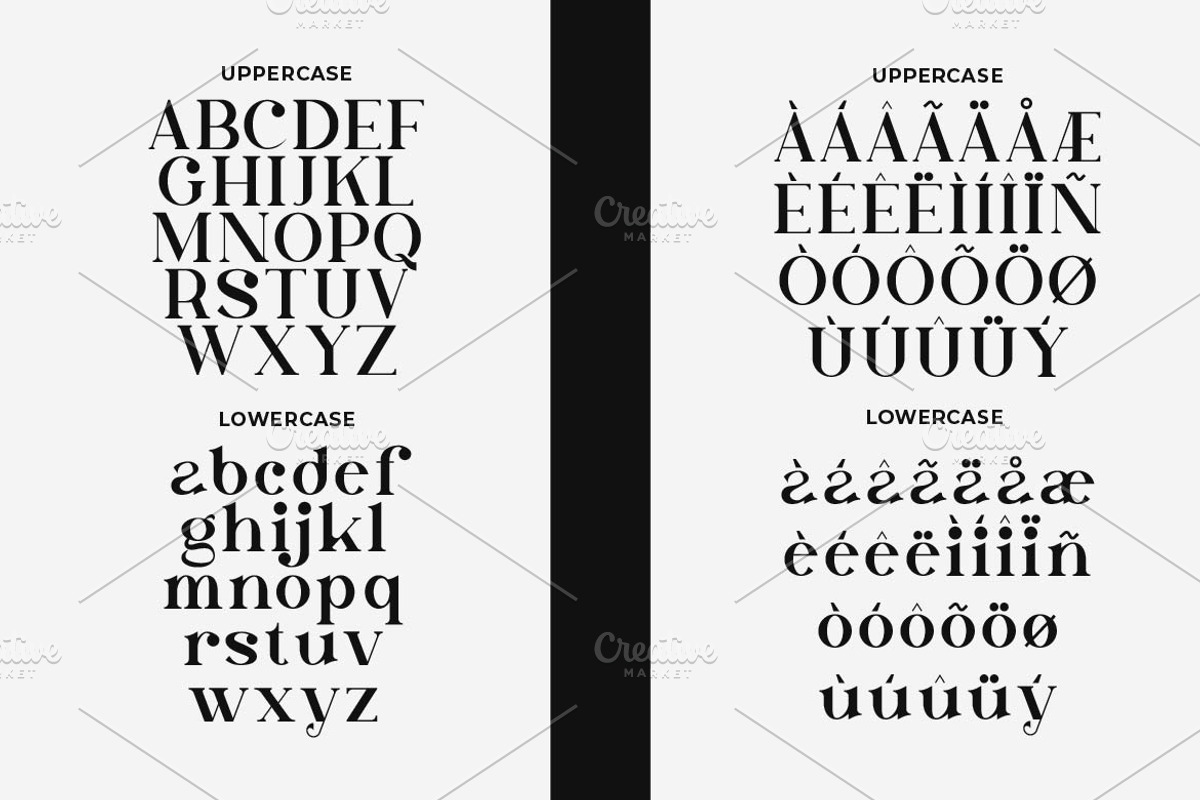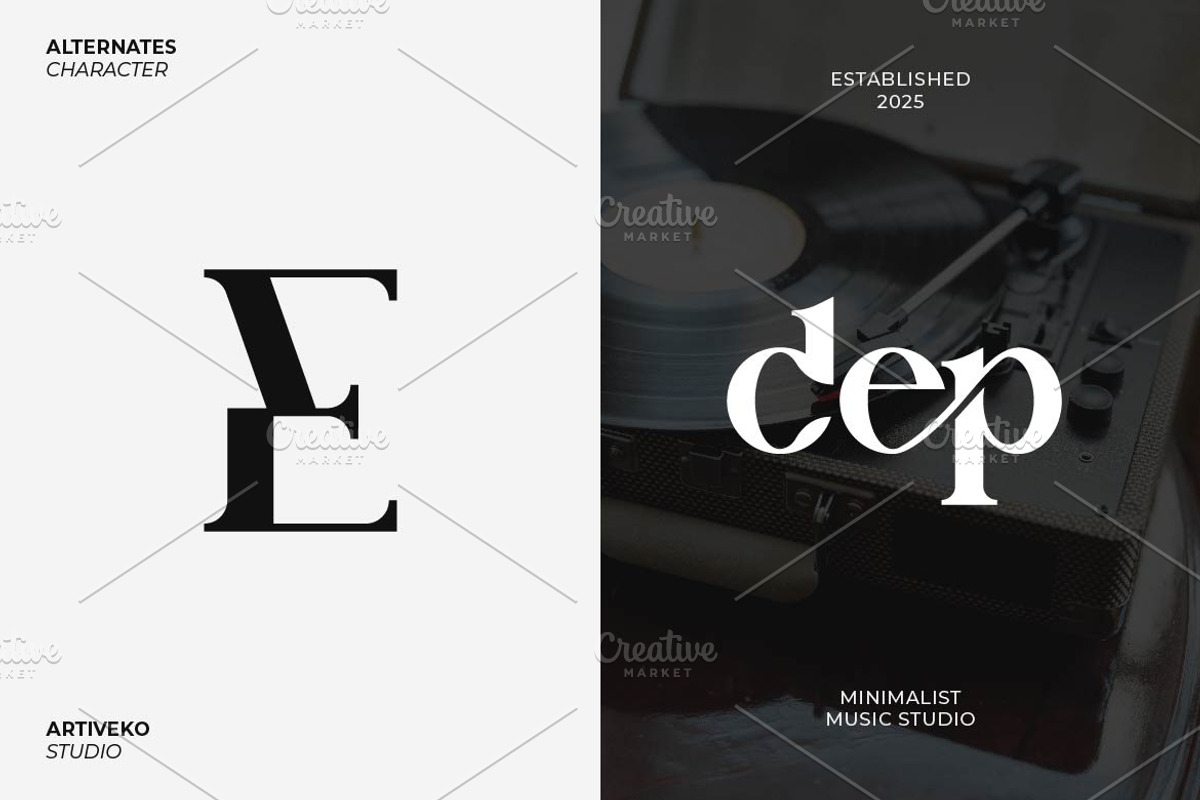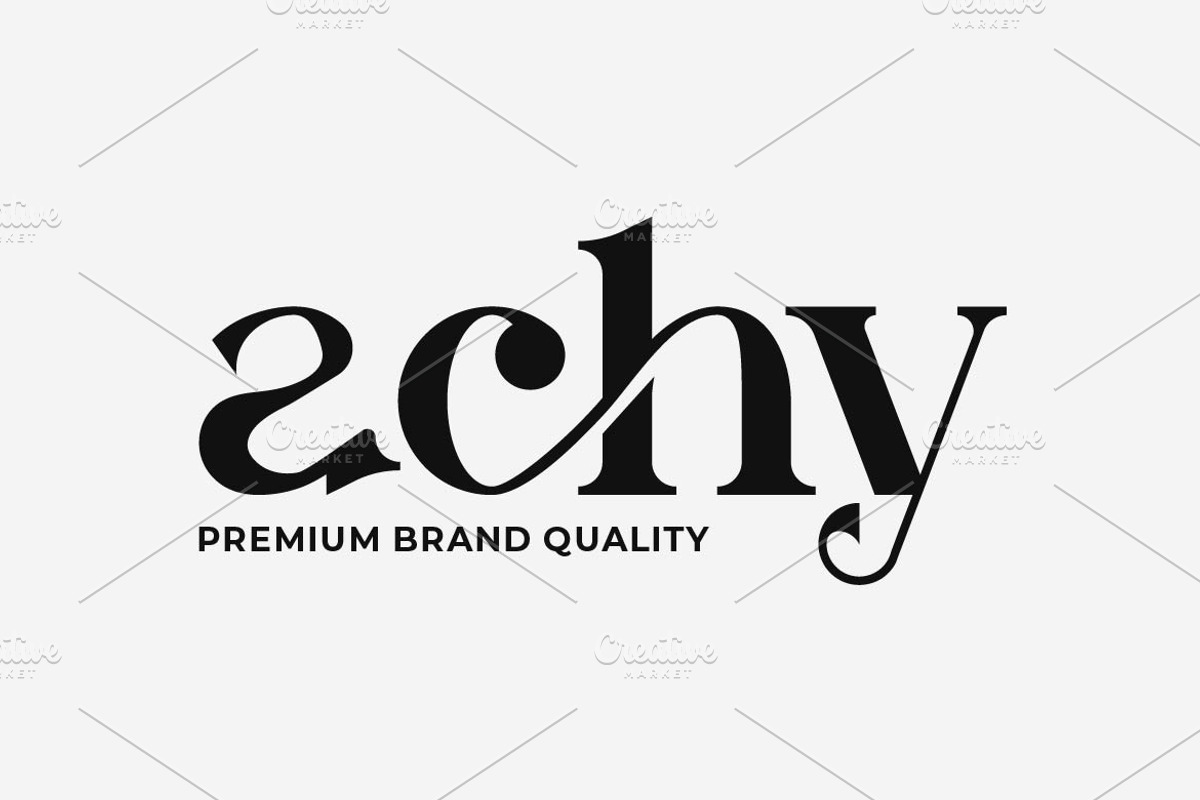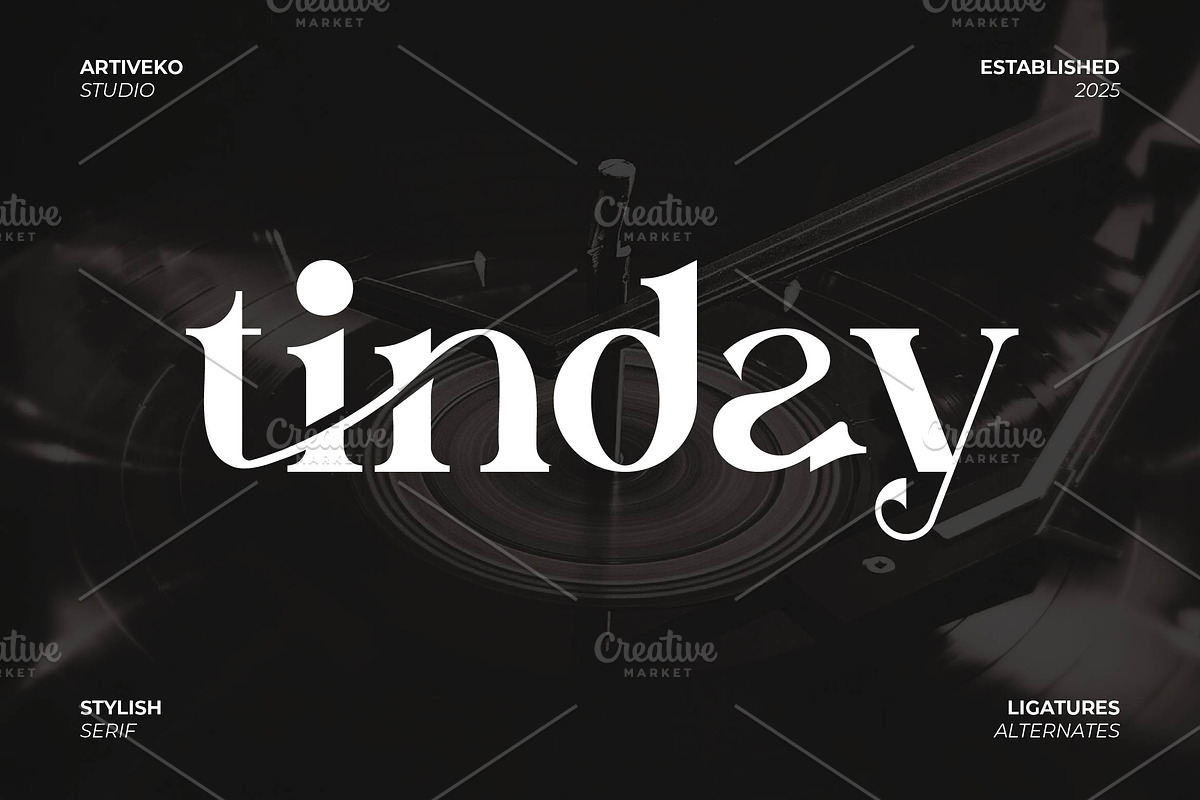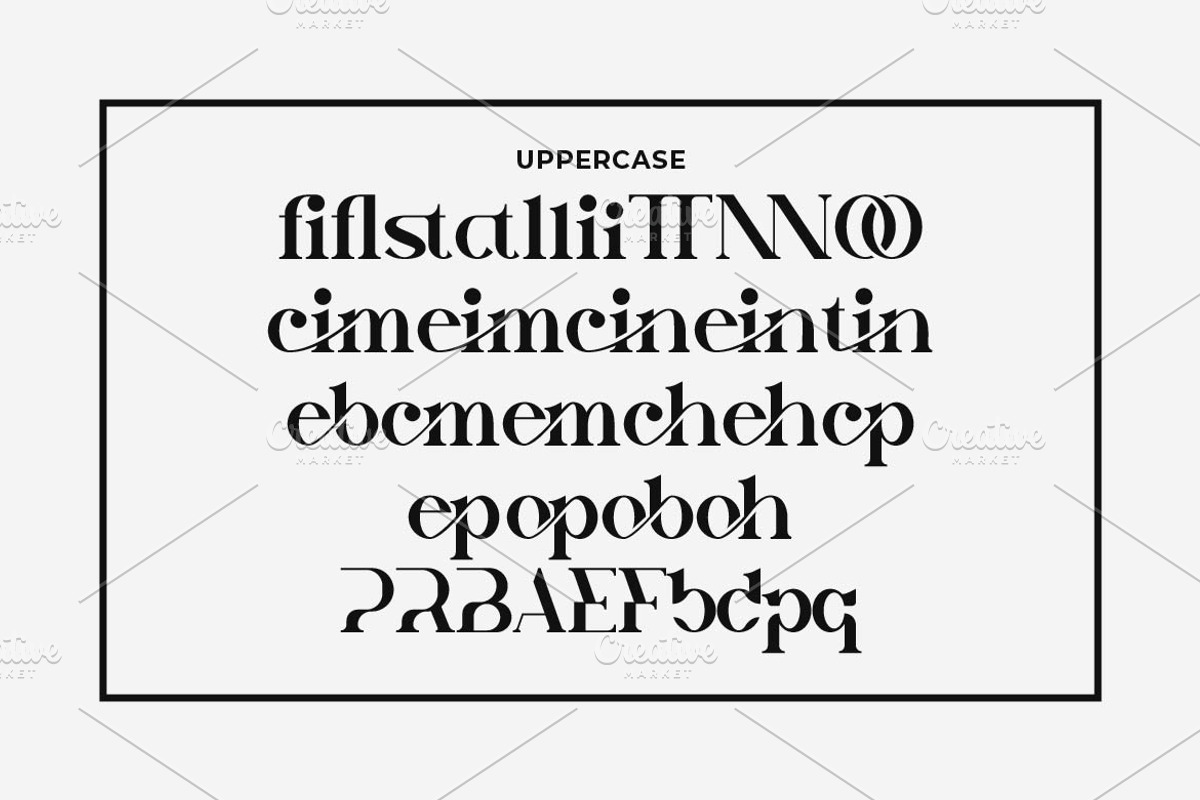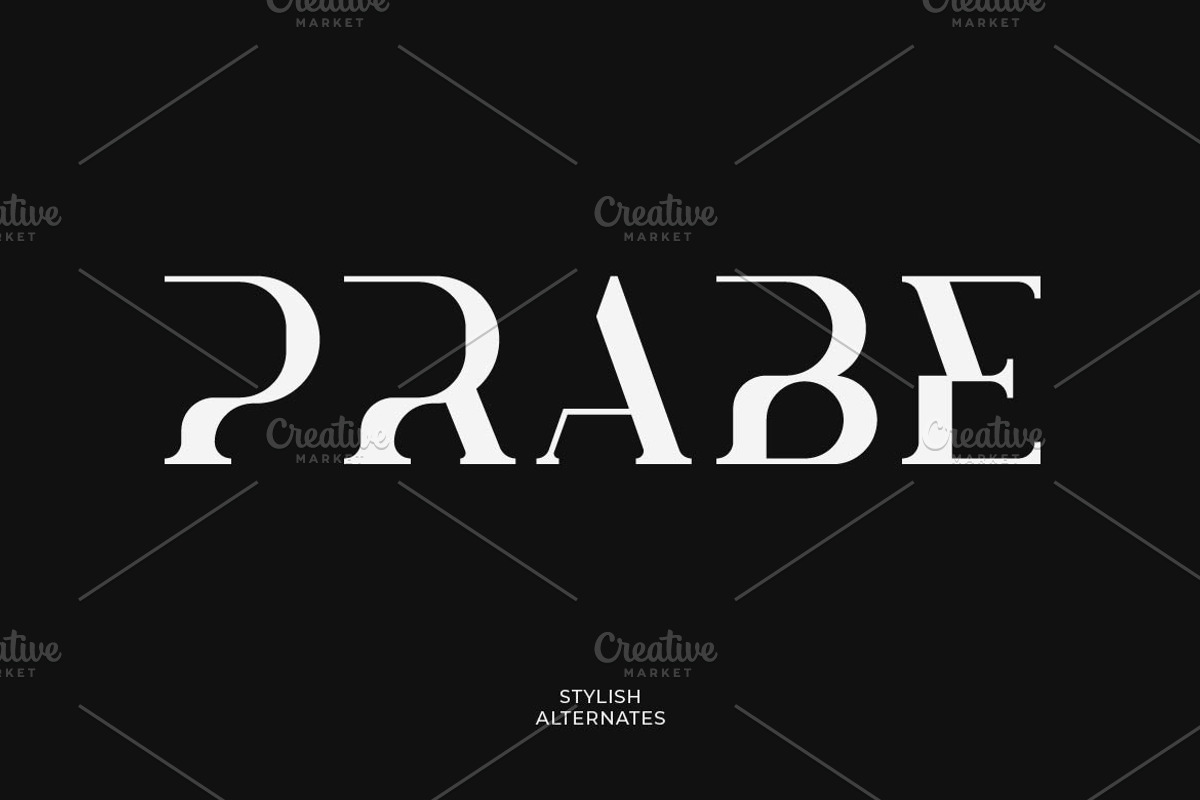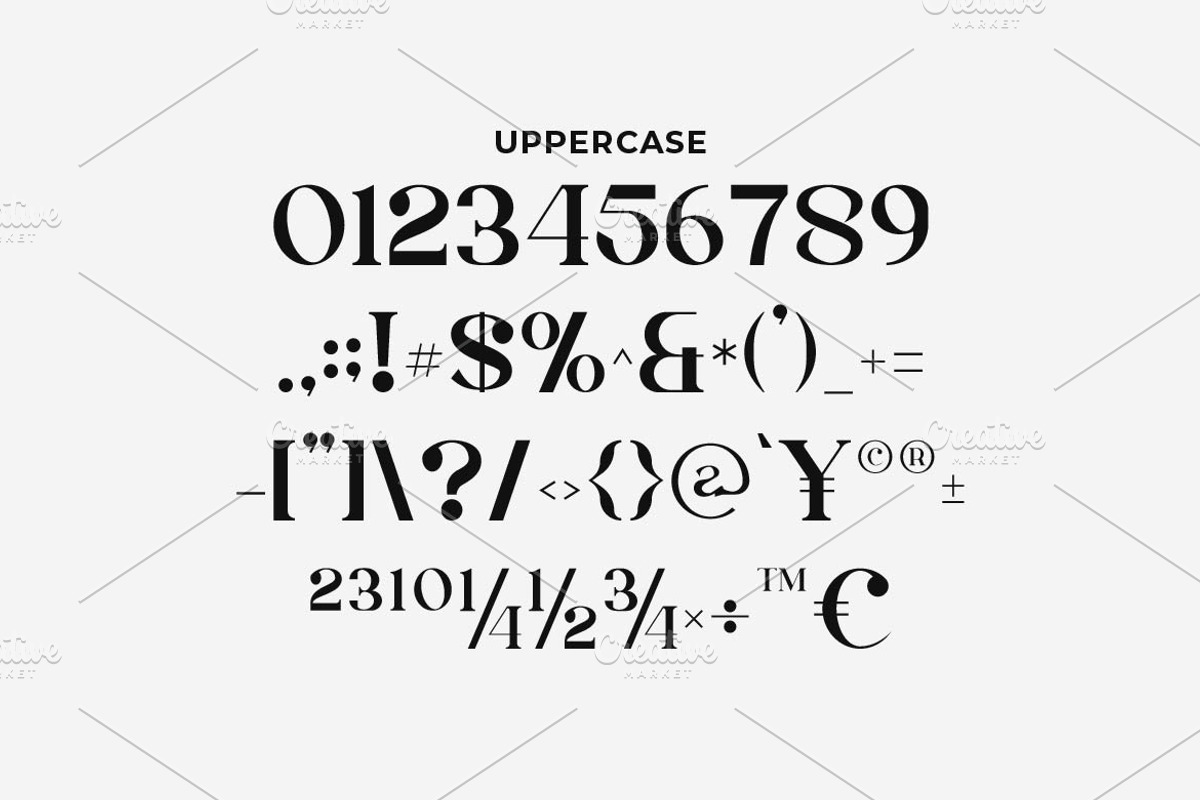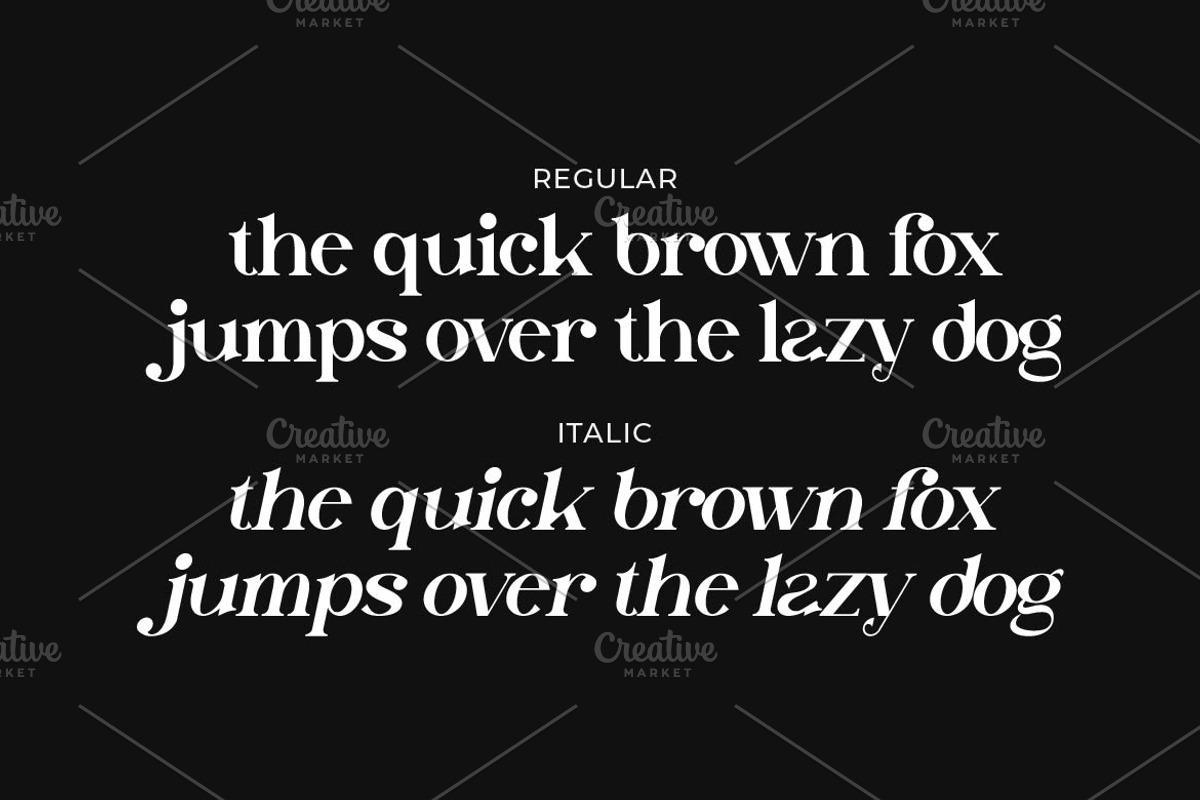
Tinday Serif Font
Tinday is a luxury serif font crafted with elegance and sophistication. Featuring graceful curves, refined serifs, and balanced proportions, Tinday is perfect for high-end branding, editorial design, wedding invitations, and luxury packaging. With multilingual support, ligatures, and alternates, this typeface exudes class and exclusivity, making it an excellent choice for projects that demand a timeless and prestigious aesthetic.